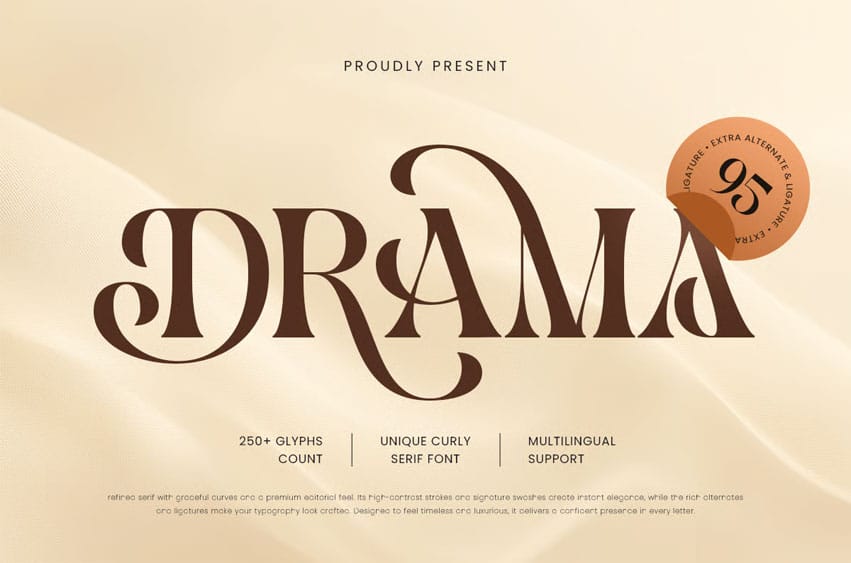
Drama Font is a unique curly serif font designed to bring expressive elegance and decorative personality to your typography. With stylish serif structure and distinctive curly details, this typeface creates a refined visual tone that feels artistic, classy, and instantly memorable.
Built for statement-driven design, DRAMA works beautifully across logos, wordmarks, editorial layouts, magazine covers, website headers, packaging, labels, invitations, posters, signage, and social media visuals. Its curly serif character adds a graceful decorative flair while keeping typography readable and polished across both digital and print applications.
Whether you’re building a fashion identity, creating boutique branding, designing elegant packaging, or crafting artistic editorial headlines, DRAMA provides a unique serif foundation that makes your visuals feel sophisticated, expressive, and full of premium charm.
Inspiration Behind DRAMA
DRAMA is inspired by decorative serif typography and expressive editorial aesthetics—where elegant curves and distinctive details create a bold visual signature. The design focuses on curly serif rhythm, artistic refinement, and premium balance to support standout branding and stylish headline design with a graceful, memorable presence.
DRAMA Font Features:
- Unique curly serif letterforms with elegant decorative character
- Perfect for logos, branding systems, and expressive headline typography
- Stylish serif structure with artistic visual personality
- High readability for editorials, packaging, and premium layouts
- OpenType features for polished professional typesetting
- Logos, wordmarks, and premium brand identity systems
- Editorial layouts, magazine covers, and headline typography
- Fashion, boutique, beauty, and artistic branding
- Packaging, labels, invitations, and elegant promotional design
- Social media graphics, websites, and stylish marketing visuals
Multilingual Support
Make every headline unforgettable with DRAMA—a unique curly serif font made for expressive, elegant branding.